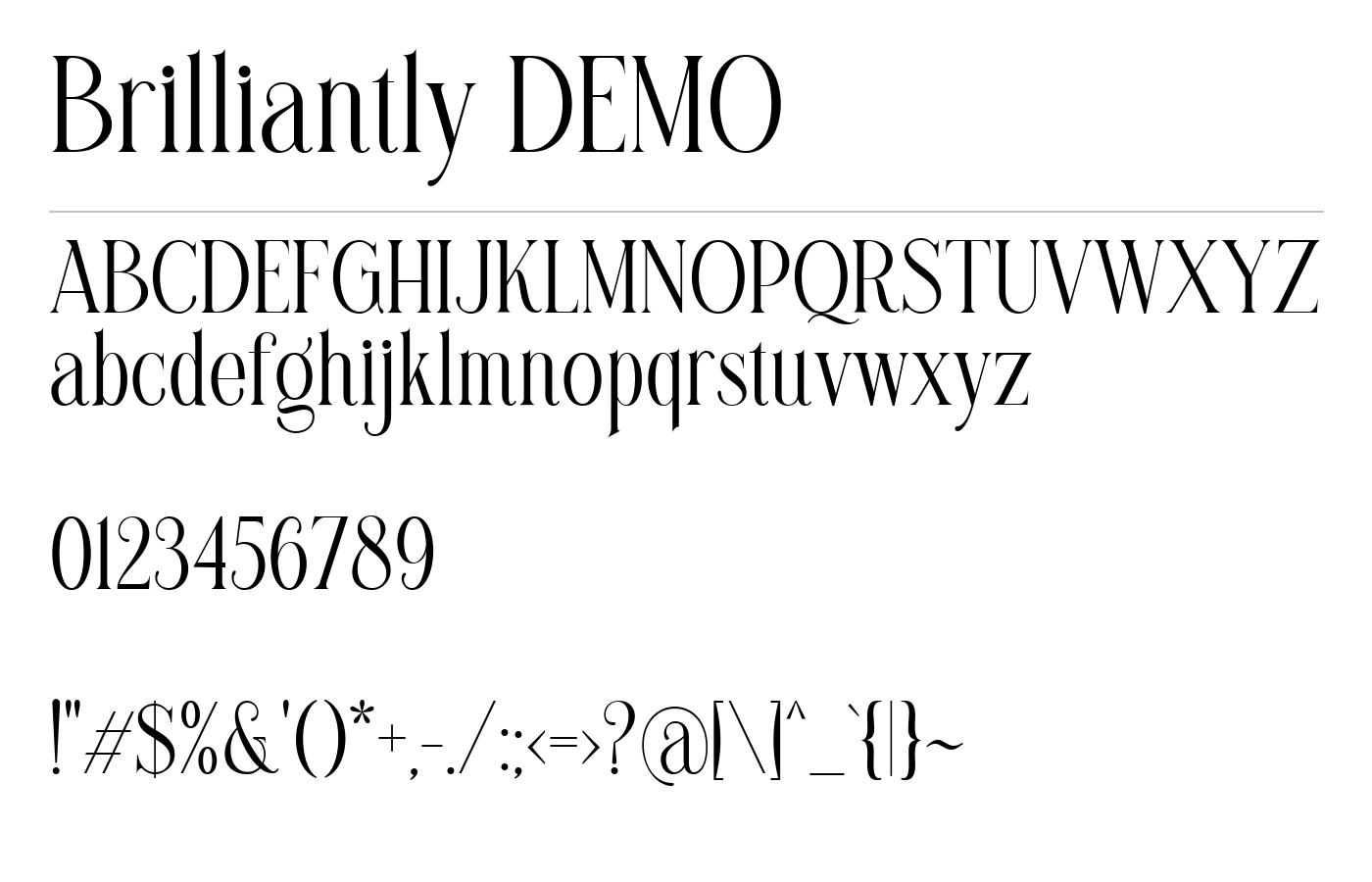
Brilliantly DEMO is an elegant serif font with a refined, high-contrast stroke that blends classic sophistication with a modern, delicate touch. Its tall, narrow letterforms and thin, sharp serifs create a graceful, upscale appearance, making it ideal for luxury branding, editorial headlines, and fashion-focused designs where style and exclusivity are key. This font’s slender, stylish character adds a timeless and polished feel to any project.
Brilliantly DEMO Font
About Brilliantly DEMO Font